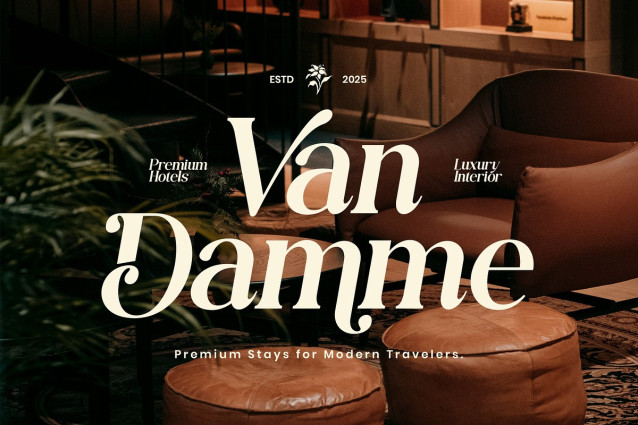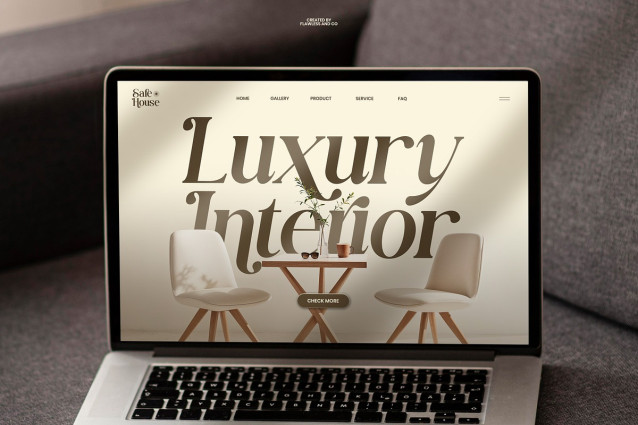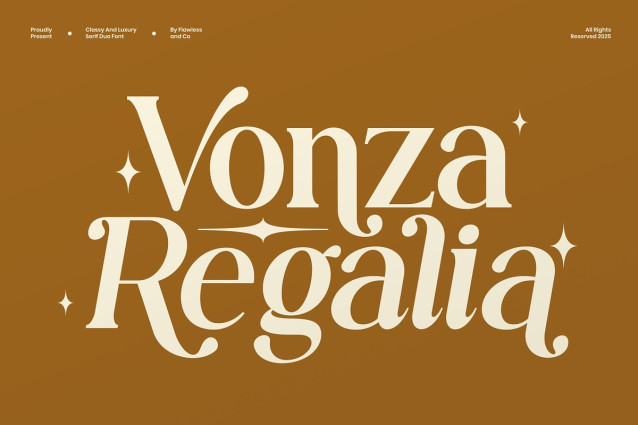
Vonza Regalia Font
Vonza Regalia Font is a classy and luxury serif duo font designed to elevate high-end branding with timeless elegance and modern sophistication. Featuring a perfect combination of refined serif styles, this font delivers a harmonious contrast that brings character, grace, and premium appeal to every design.